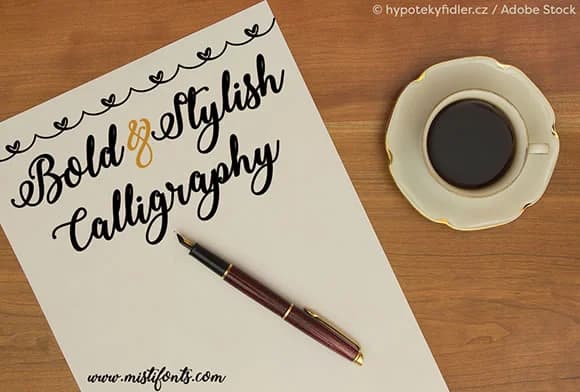
About Bold & Stylish Calligraphy Font
Bold & Stylish Calligraphy Font by Misti is an assertive handwritten script that masterfully balances thick, confident strokes with delicate calligraphic flourishes throughout its character set. The typeface combines substantial weight with refined letterforms, creating a distinctive visual personality that manages to feel both authoritative and elegant simultaneously. This dual nature makes it equally at home serving as a primary design anchor or functioning as a sophisticated accent across diverse creative applications.
The font excels across wedding stationery suites, where its bold calligraphy creates memorable first impressions on invitations, menu cards, and thank-you notes that demand attention. It's remarkably suited for luxury product labels and boutique packaging that demand visual sophistication without sacrificing legibility or elegance. Event professionals effectively deploy it for branding materials, social graphics, and printed collateral. DIY crafters and makers also gravitate toward this typeface for custom projects that require statement-making letterforms capable of commanding attention in competitive visual spaces.
- Elegant, Flowing, Bold Stylish Calligraphy
Bold & Stylish Calligraphy Font is a script font that shines as a display or heading face. Pair it with a clean sans-serif or serif font for body text β the contrast creates a clear hierarchy while the two styles stay balanced and easy to read.
Bold & Stylish Calligraphy Font
by Misti